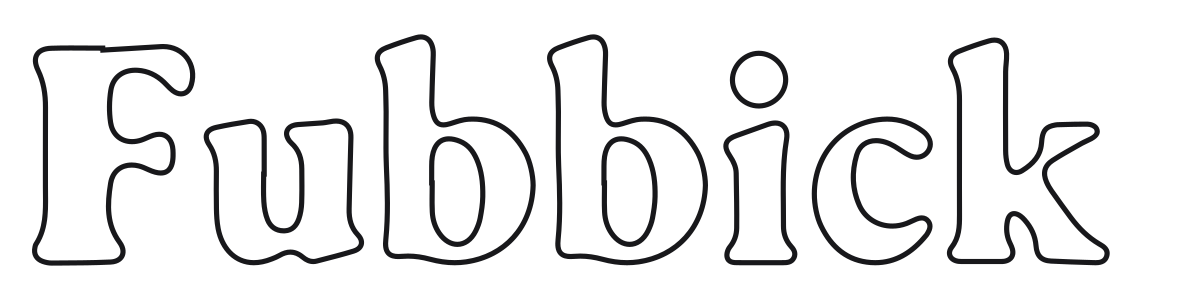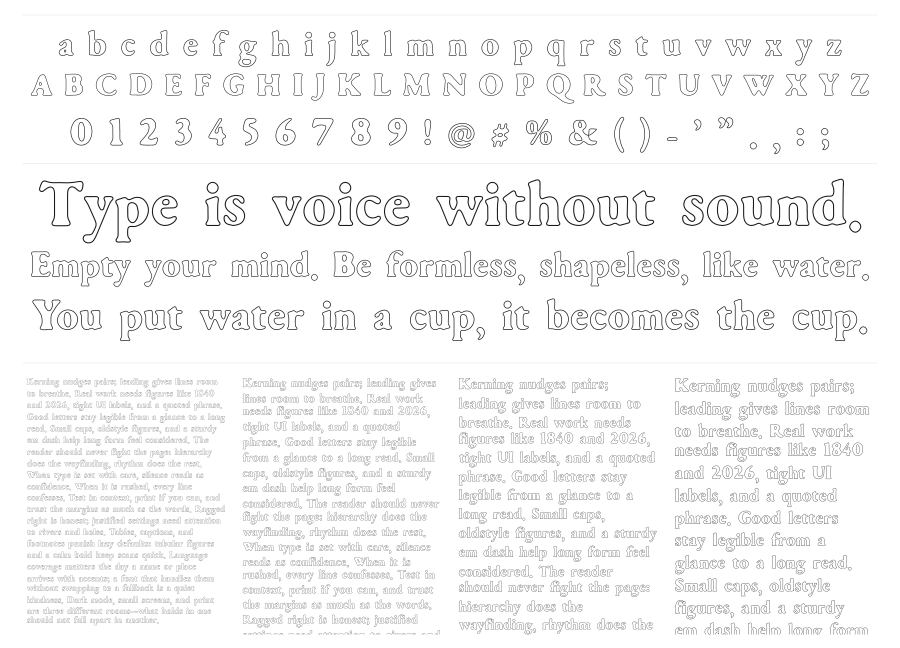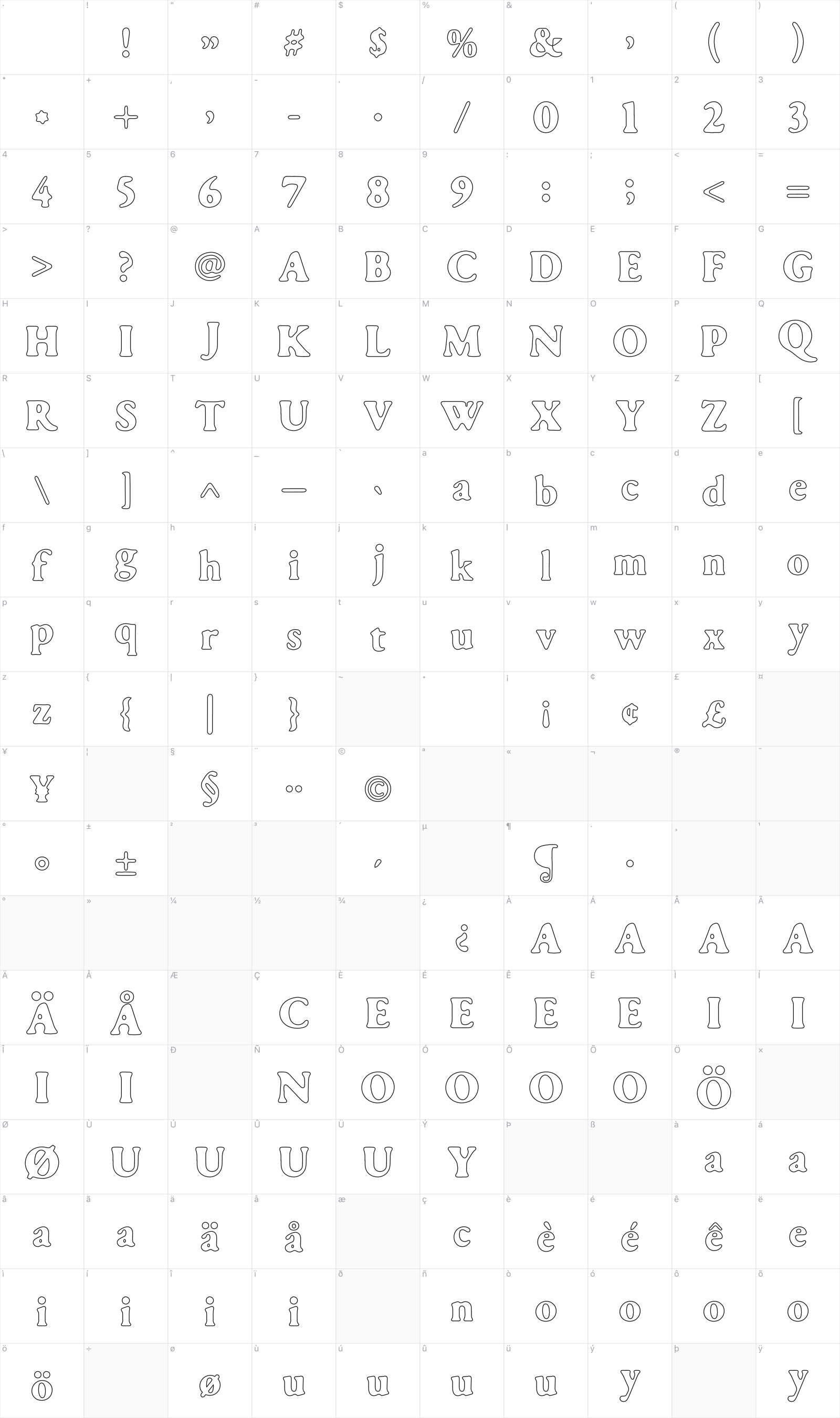
Fubbick
Fubbick is a chunky outlined serif with rounded, cartoon-inflected forms and a warm retro personality rooted in 1970s hand-lettering. The hollow double-stroke construction gives it an open, graphic quality that reads well large and stands out in busy layouts. Available in regular, outline, and sketch styles, it covers a useful range of decorative moods.